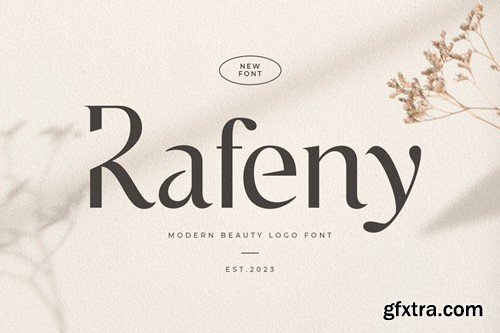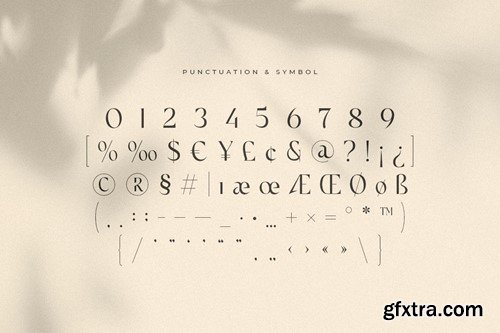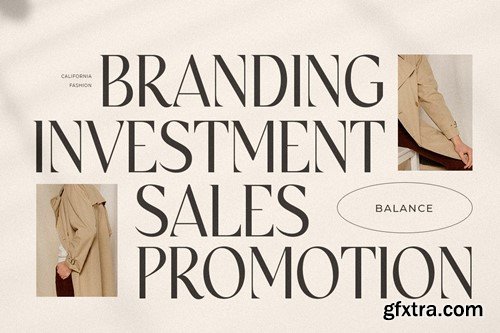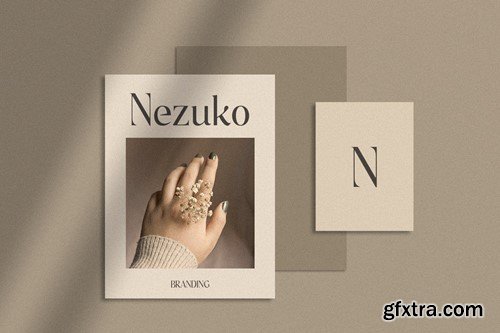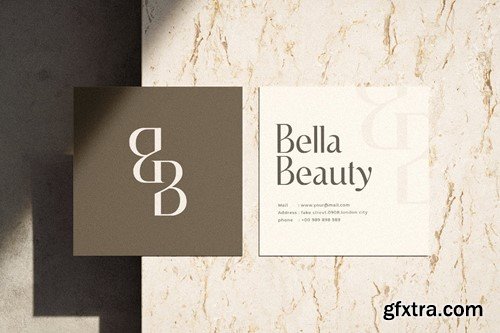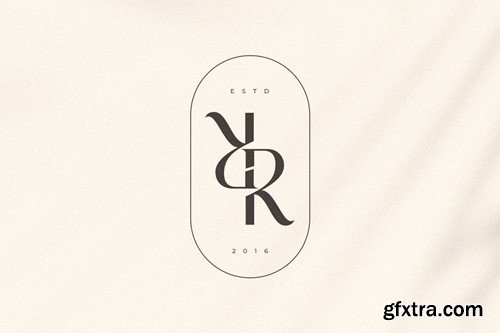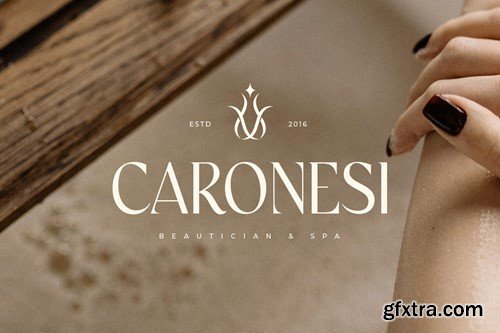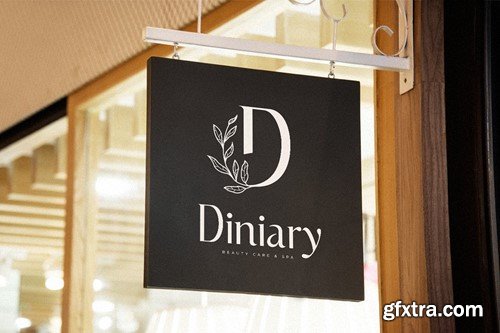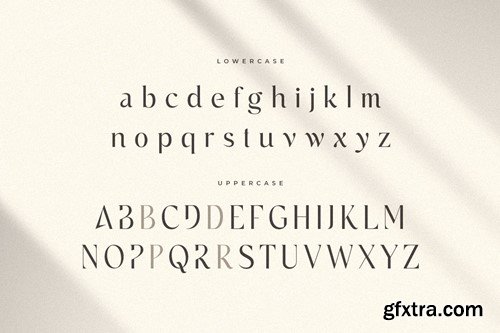
Rafeny - 现代美丽Logo字体 74D5T6E
Rafeny - Modern Beauty Logo Font 74D5T6E
Rafeny - Modern Beauty Logo Font
A Serif font that we created special for Luxury Modern branding needs, with unique shape will be ready to add value of your brand. It so nice to leverage designer or product owner that need solutions to make their design look more Luxury and modern. And specially for Rafeny font, We prepared nice characters to help you create unlimited variations for your creative needs.
Rafeny Luxury Modern Beauty Logo font ready with:
• Any options to get creative variations
• Preview as a inspirations that you can do with Rafeny font
• Ready with Lowercase and Uppercase characters